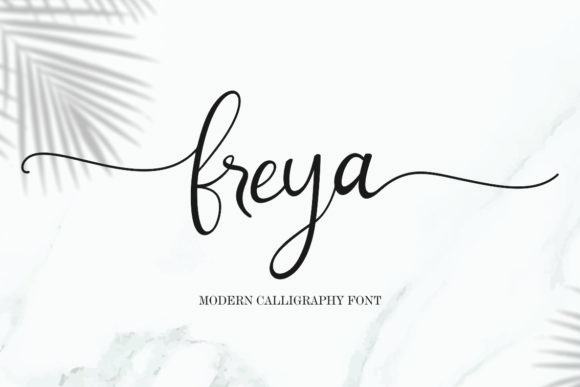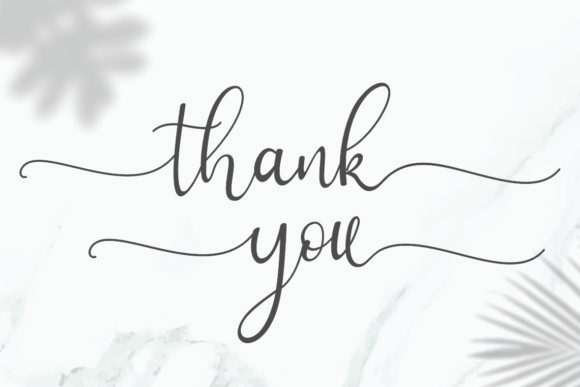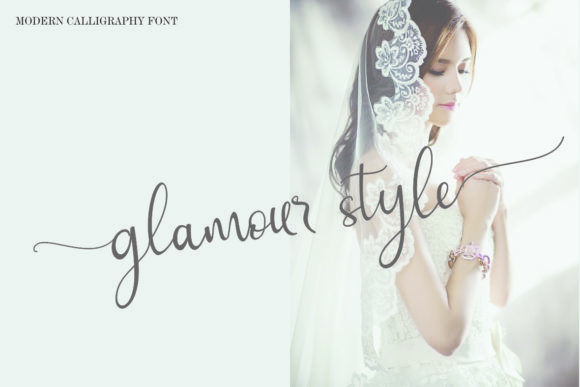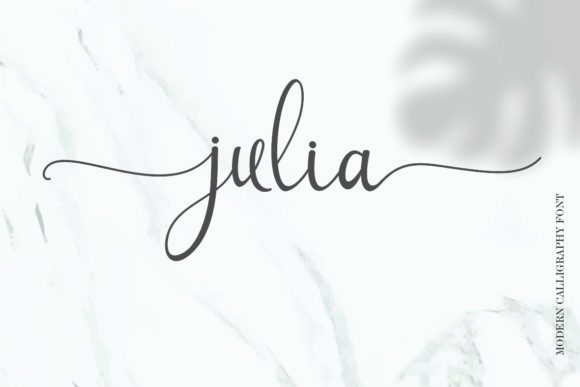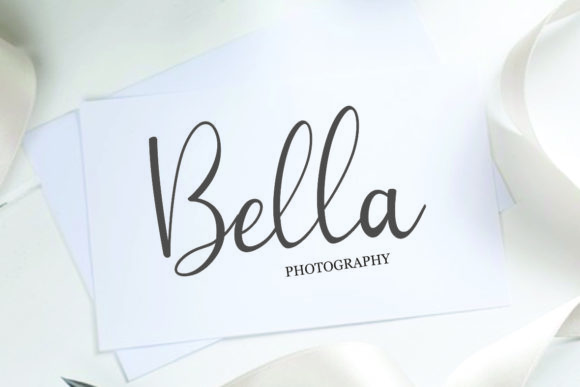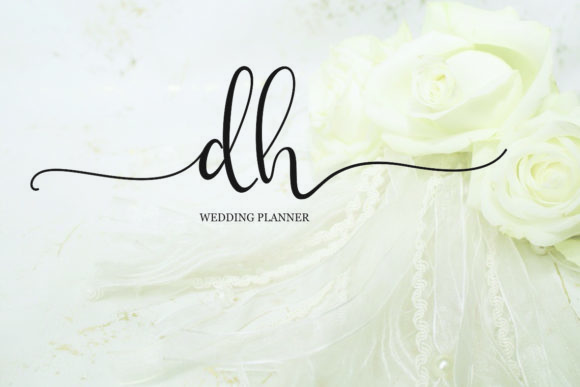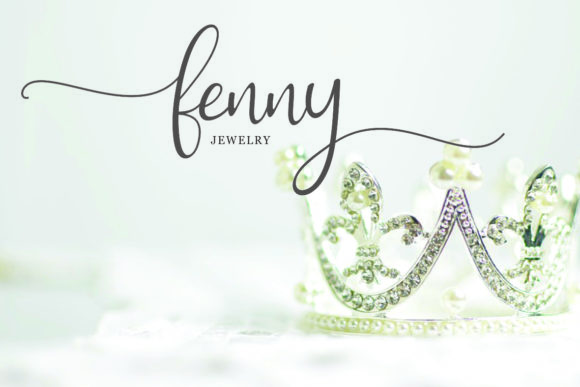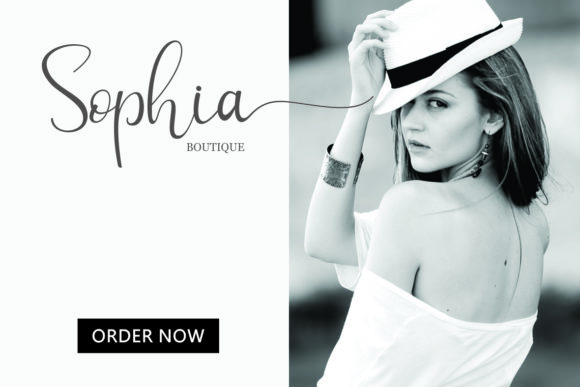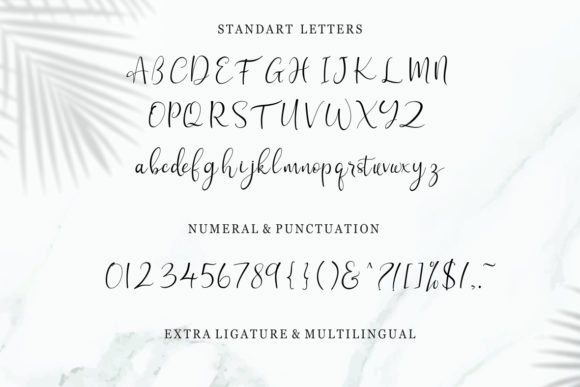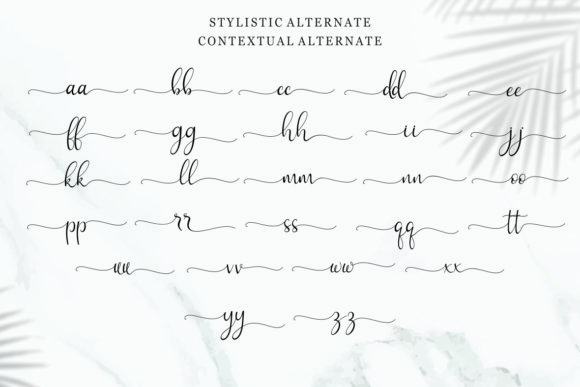
HomeScript FontsFreya Font Script Fonts Freya Font FacebookXPinterestWhatsApp Freya Font Poster 2 Freya Font Poster 3 Freya Font Poster 4 Freya Font Poster 5 Freya Font Poster 6 Freya Font Poster 7 Freya Font Poster 8 Freya Font Poster 9 Freya Font Poster 10 About Freya Font Freya is a stunning and charming script font that will effortlessly elevate any creative project. DOWNLOAD NOW People also explored Cristal Font Blackcat Font Witha Sign Font Thin Toys Font Teddy Font The Hartford Font Signature Chocolate Font Stefani Family Font Hallowed Eve Font Font 406 0 TagsFreya Font Previous articleMarietta Sussaffe FontNext articleRockies Font LEAVE A REPLY Cancel reply Comment: Please enter your comment! Name:* Please enter your name here Email:* You have entered an incorrect email address! Please enter your email address here Website: Save my name, email, and website in this browser for the next time I comment. Personal Use Free Zojihun Personal Use Free Read more about this font Bettari Personal Use Free Read more about this font Namskow Personal Use Free Read more about this font Strings Personal Use Free Read more about this font BLOG How to Cut Any Font on Cricut: Convert a Font to SVG (Free) Turn any font into a clean SVG so it cuts crisp on Cricut - a quick 3-step workflow using a free font-to-SVG tool. Exploring Font Trends Using Fonts in Digital Marketing: Tips to Strengthen Your Brand Identity Modern Sans-Serif Fonts That Brands Love in 2025